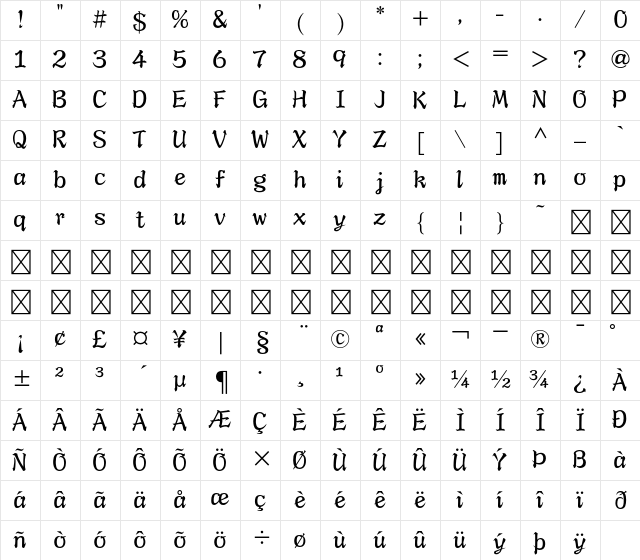
A-OTF Kakushin Gyousho Std M
Style: M
A-OTF Kakushin Gyousho Std Family
A-OTF Kakushin Gyousho Std M
A-OTF Kakushin Gyousho Std M Font Preview
A-OTF Kakushin Gyousho Std M Uppercase Preview
A-OTF Kakushin Gyousho Std M Lowercase Preview
A-OTF Kakushin Gyousho Std M Numeric Preview
A-OTF Kakushin Gyousho Std M Character Map
Complete A-OTF Kakushin Gyousho Std M glyph index. Displaying only characters natively supported by A-OTF Kakushin Gyousho Std M font.
A-OTF Kakushin Gyousho Std M Character Map
Design Context for A-OTF Kakushin Gyousho Std
A-OTF Kakushin Gyousho Std is a composed and adaptable typeface that performs quietly and consistently across a wide range of design contexts.